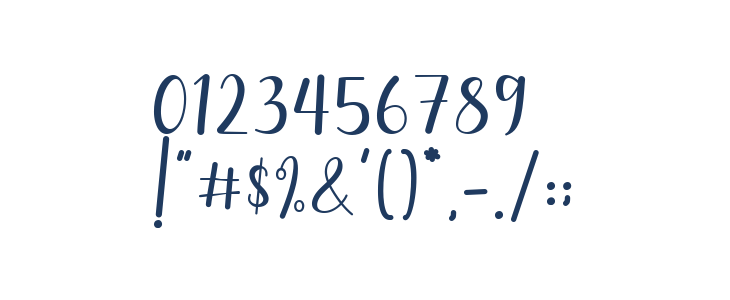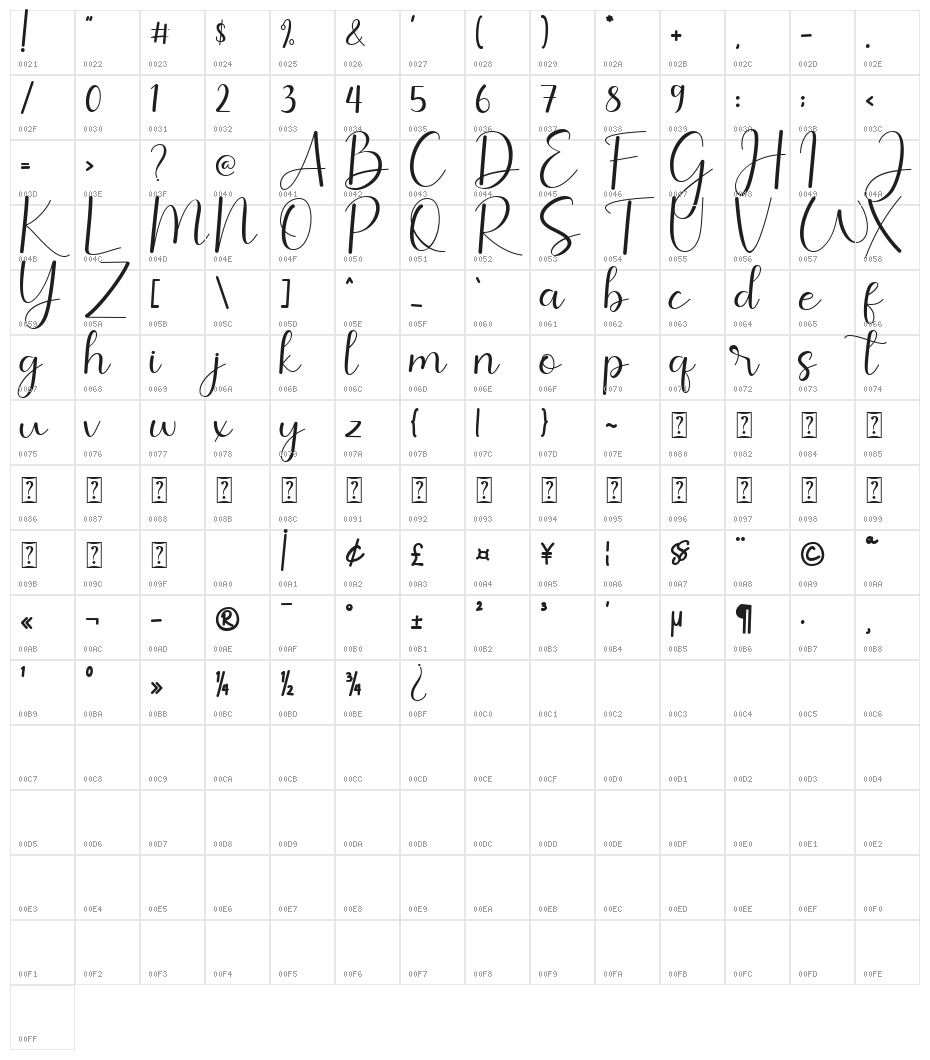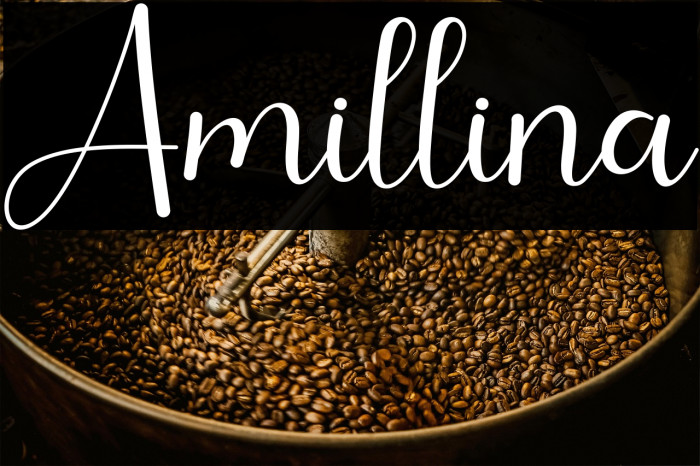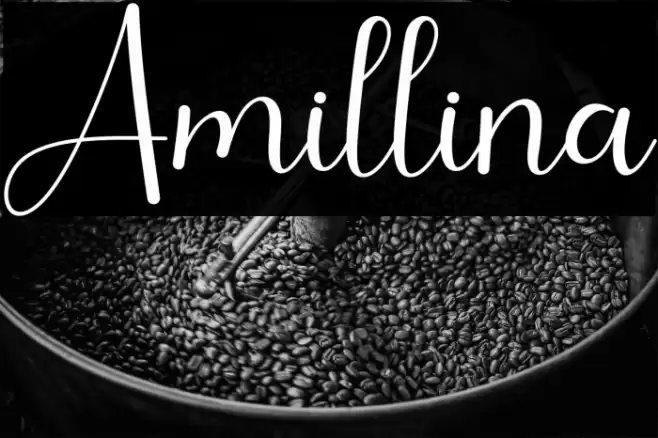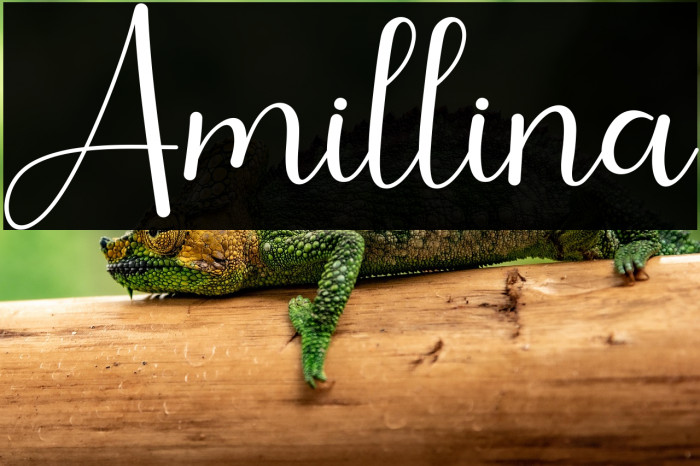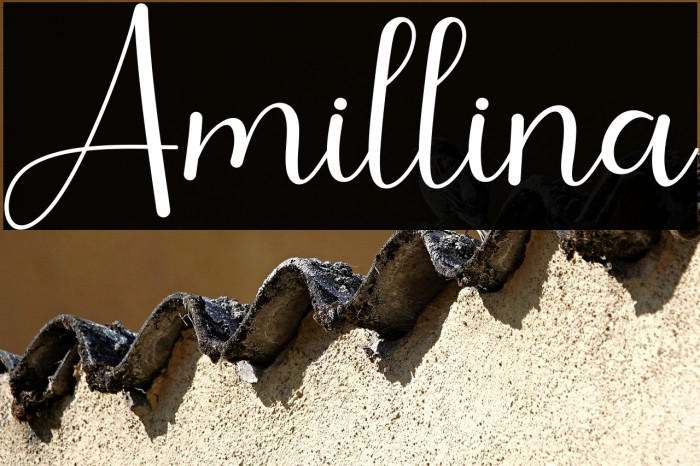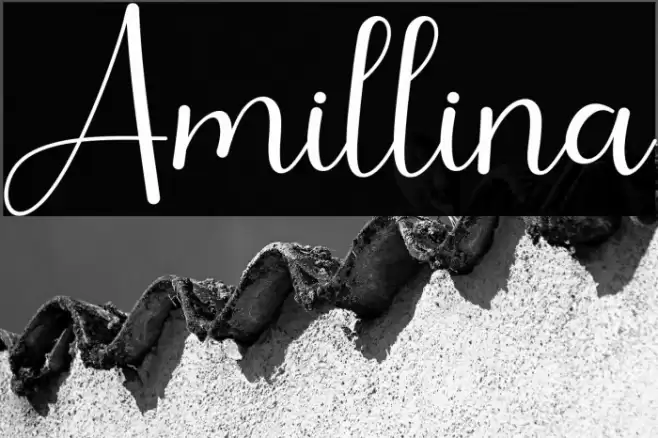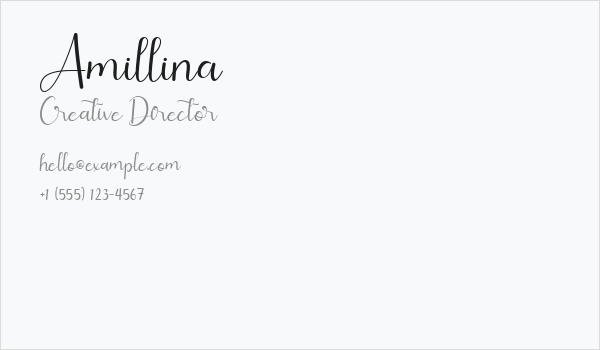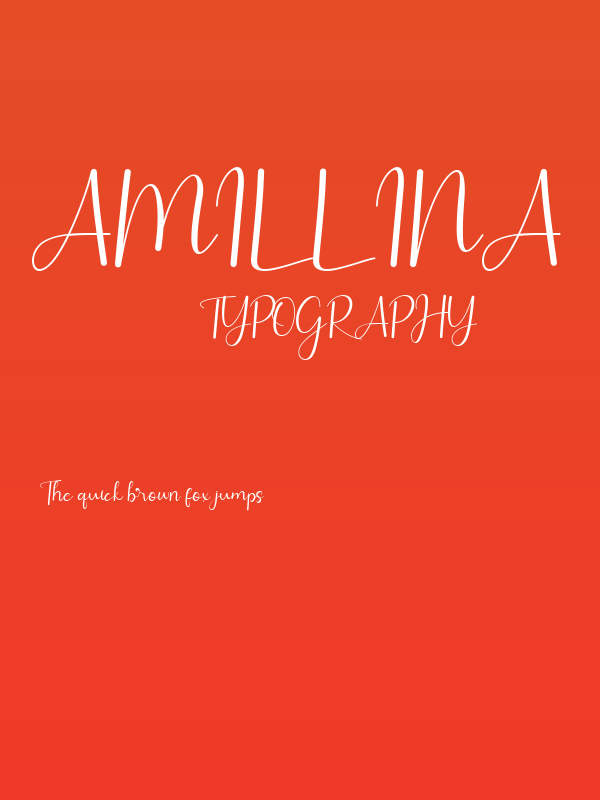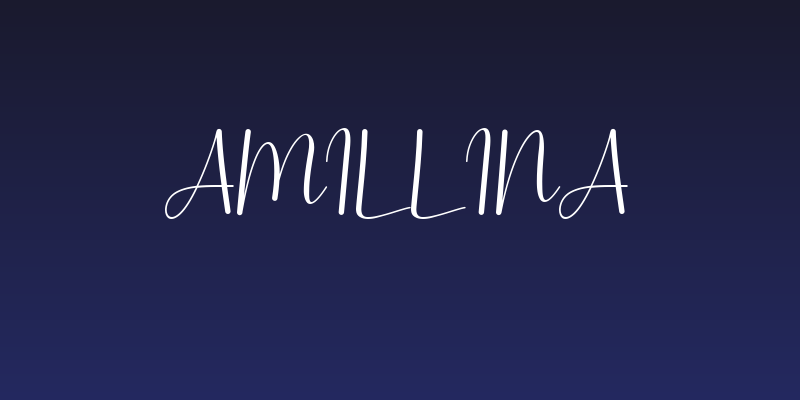
Amillina Font
Amillina Description
This font features a charming and elegant script style, characterized by its fluid and graceful strokes. The uppercase letters are tall and slender, with a slight slant that adds a sense of movement and sophistication. The lowercase letters are more rounded and connected, creating a seamless flow that is both stylish and readable. The numerals and special characters maintain the same elegant script quality, ensuring consistency throughout. This font's design is perfect for adding a personal touch to any project, with its delicate curves and artistic flair.